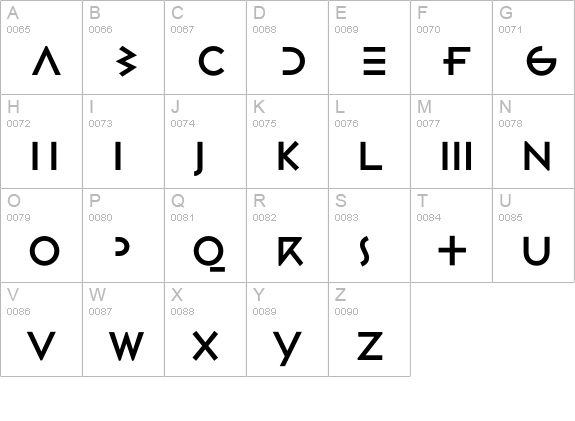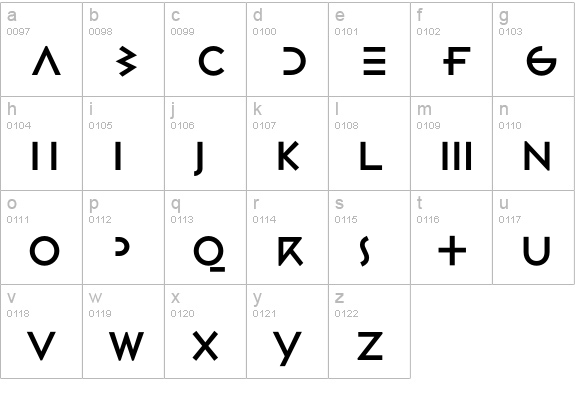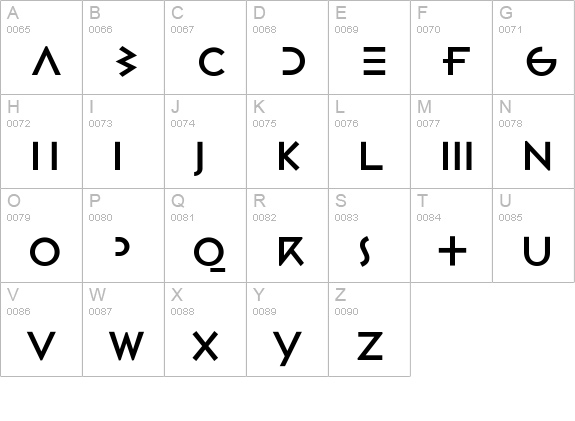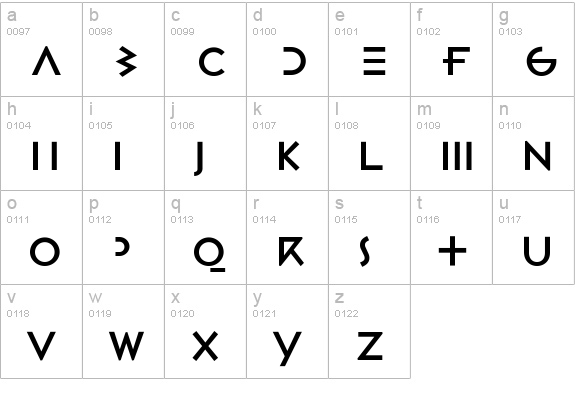
Gestalt-HTF-Linear-Medium is a balanced, medium-weight variant in the Gestalt typeface family \xE2\x80\x94 well suited to sub-headlines, navigation, and balanced editorial work.
Gestalt-HTF-Linear-Medium is a sleek and modern font that combines the clean lines of a linear style with the timeless elegance of a medium weight. This versatile typeface is perfect for a wide range of design projects, from branding to editorial layouts. Its balanced proportions and sharp details make it a standout choice for creating professional and sophisticated designs. One of the best things about Gestalt-HTF-Linear-Medium is that it is available for free download at FontsMarket.com. This means you can easily access this high-quality font without any cost, making it a valuable addition to your font library. Whether you are a designer looking for a reliable go-to font or a hobbyist looking to elevate your creative projects, Gestalt-HTF-Linear-Medium is a fantastic option that won't break the bank. Don't miss out on the opportunity to enhance your designs with the stylish and versatile Gestalt-HTF-Linear-Medium font. Download it for free today at FontsMarket.com and start creating stunning visuals that will leave a lasting impression.